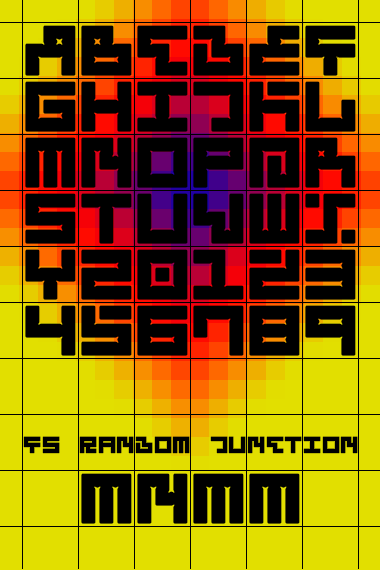
fs Random Junction
minimum
fs Random
Clone of fs Random.
Does this really require a sample?
By the way, great work here. The quirkiness of such letters as the D, N, and Q mark your signature style. Bold, unique, balanced. 10/10.